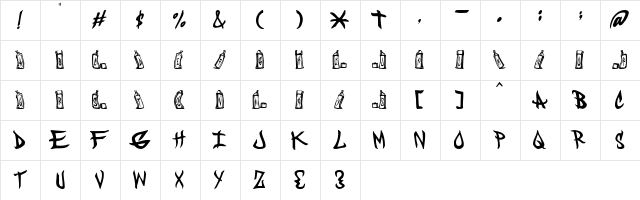
CANS Regular
Design Context for CANS Typeface
CANS is a composed and adaptable typeface that performs quietly and consistently across a wide range of design contexts.